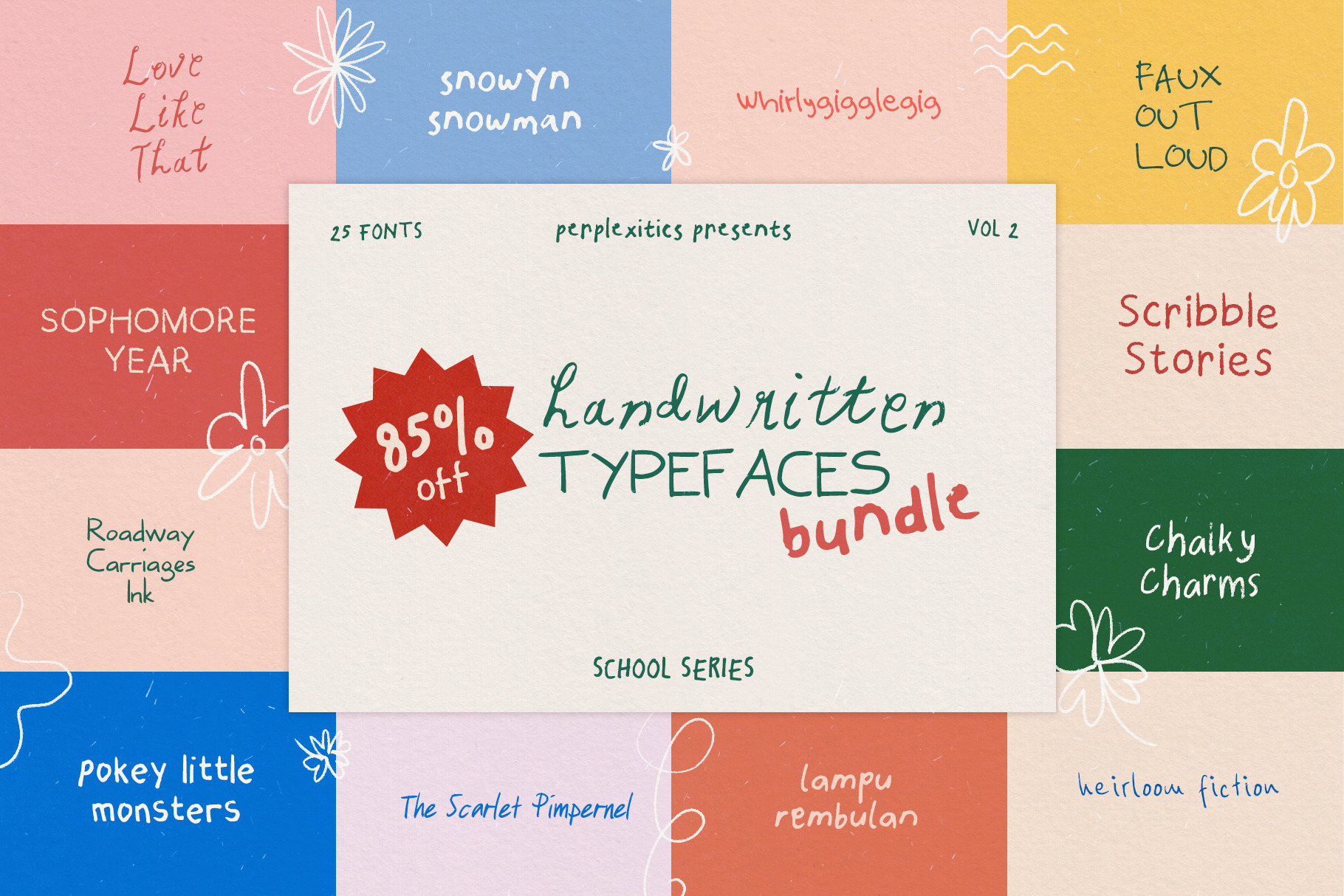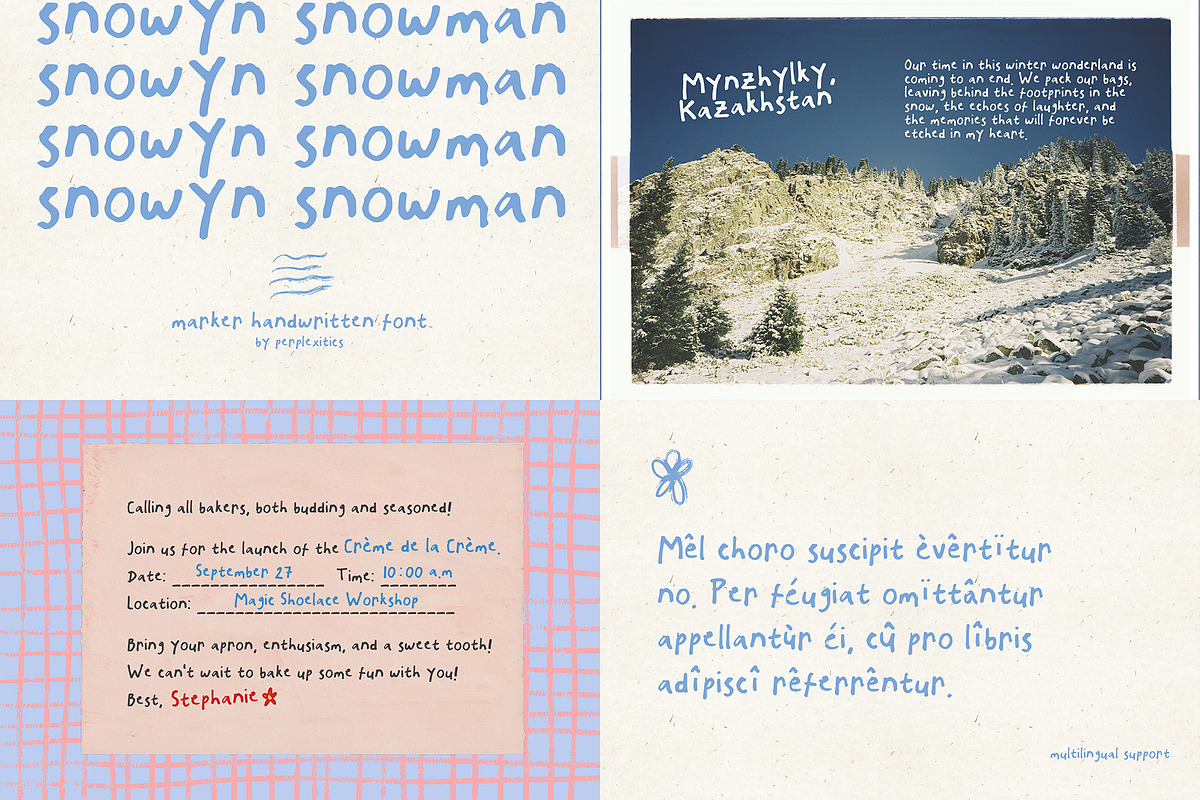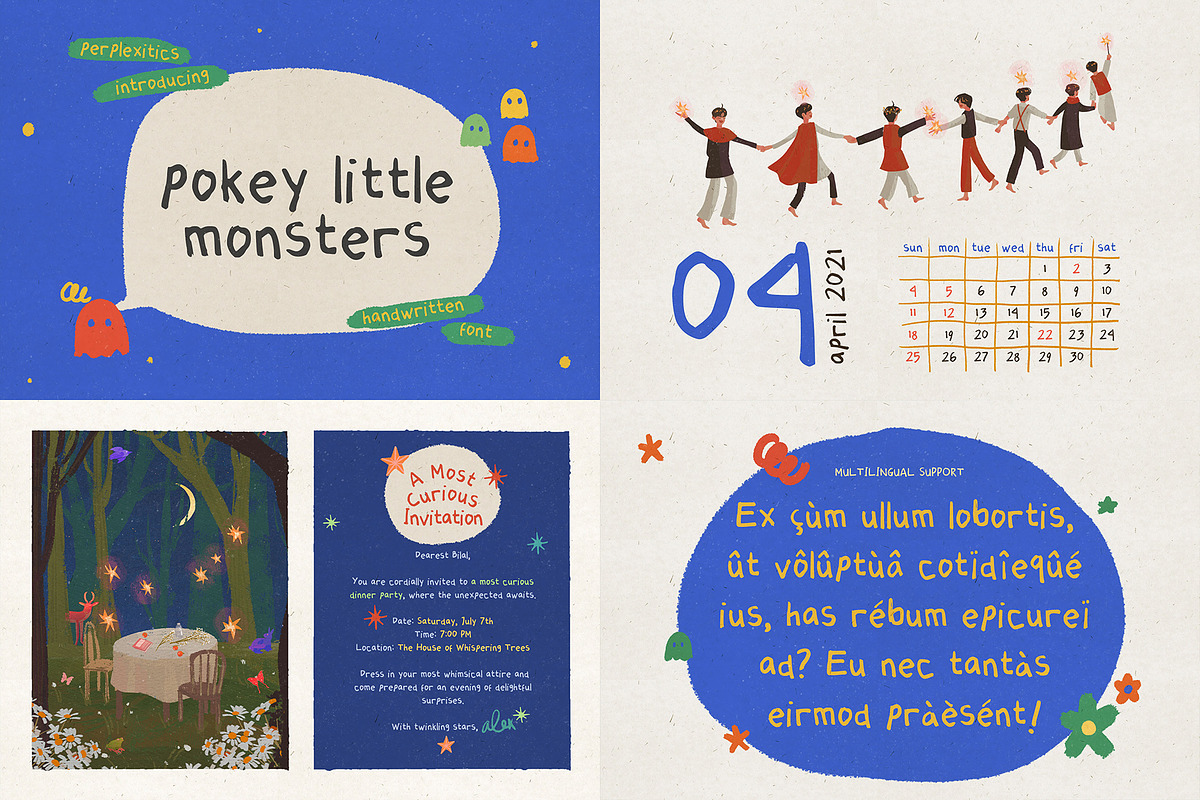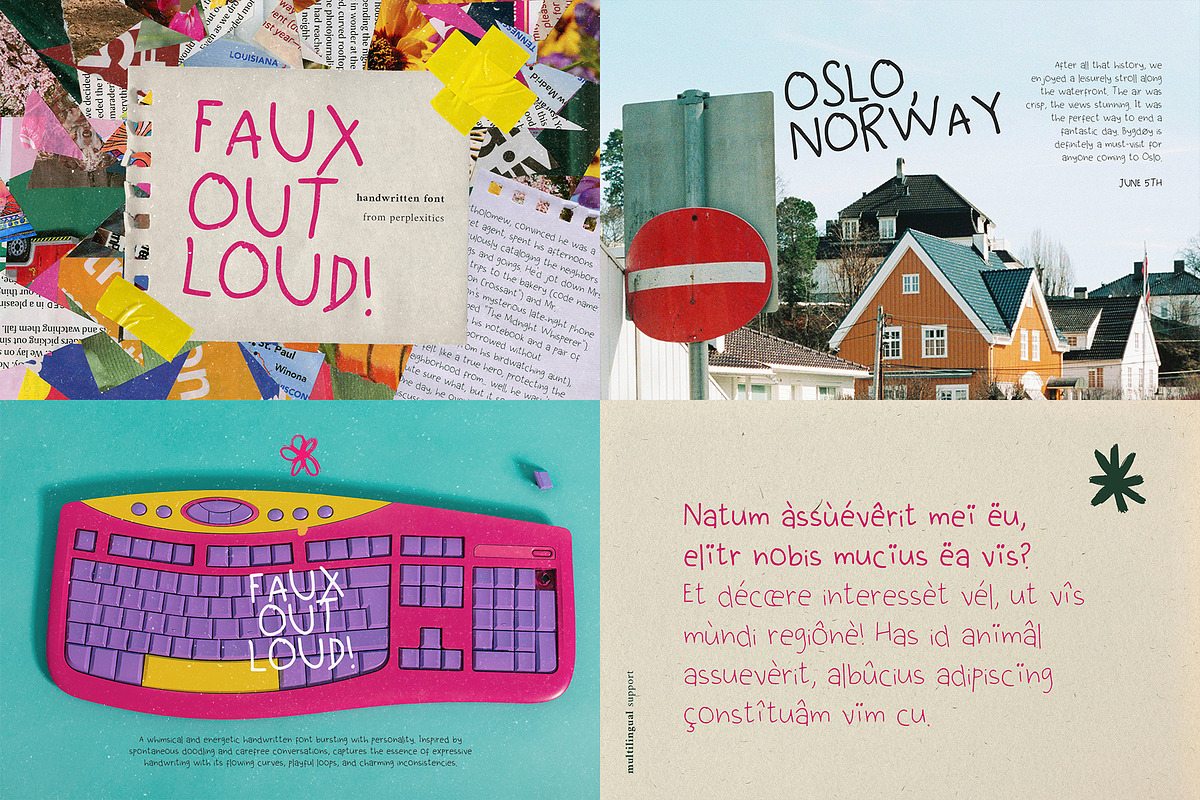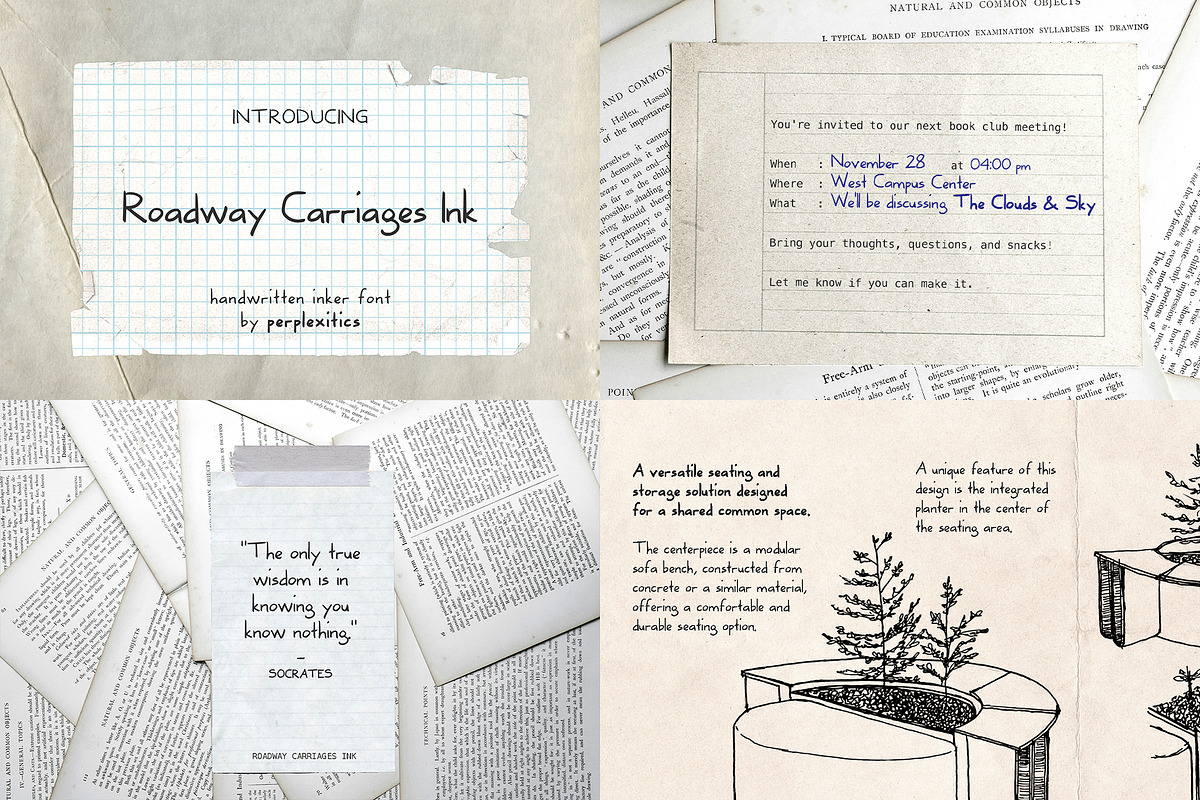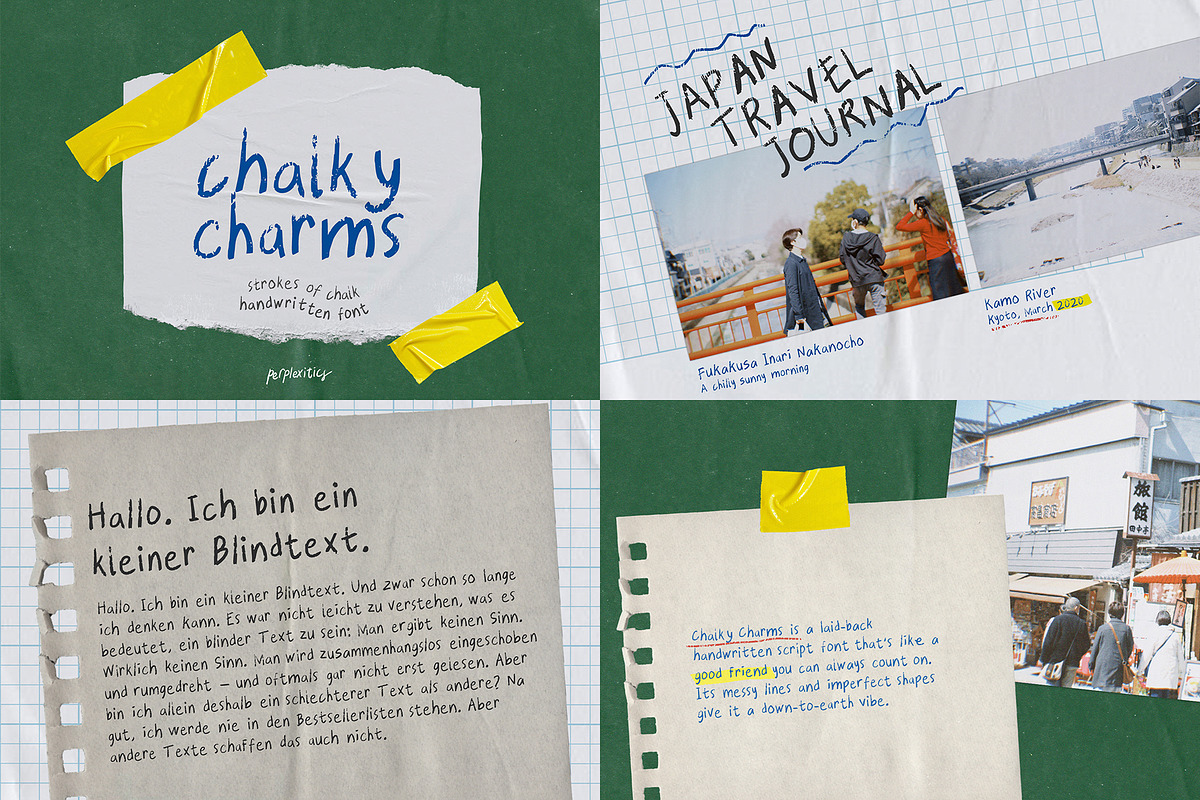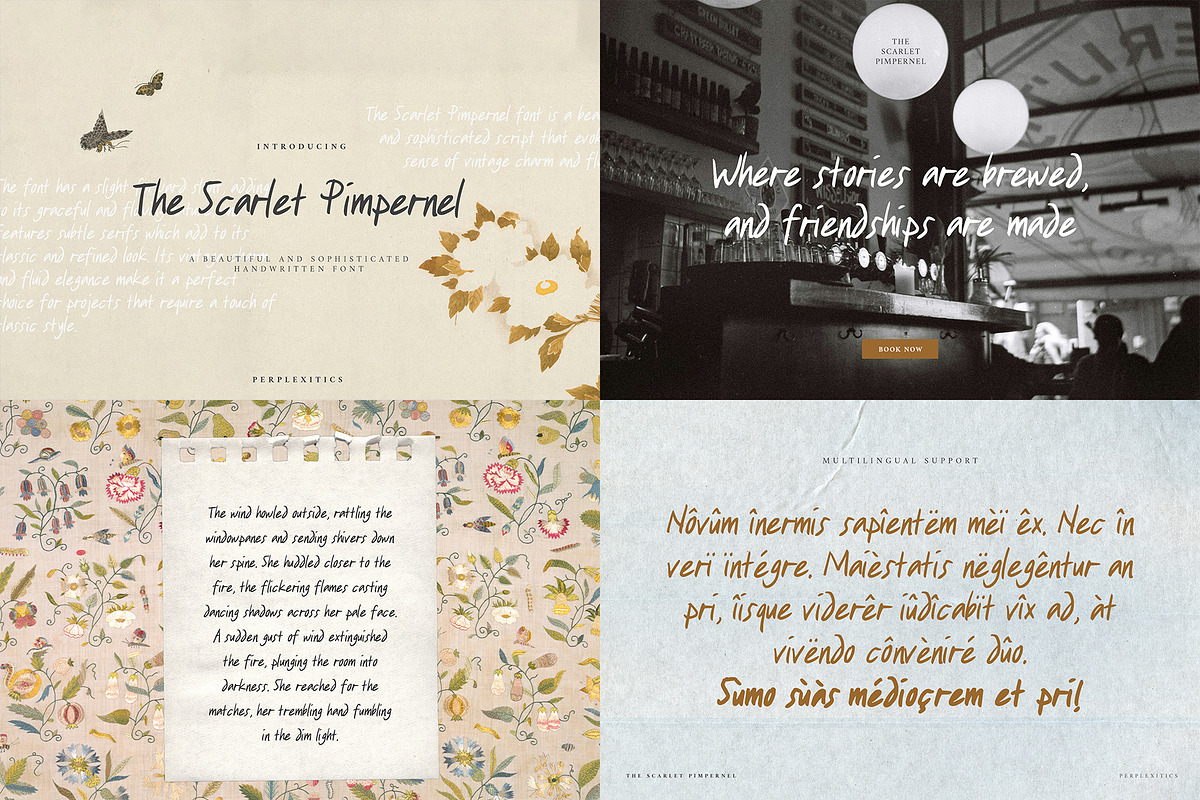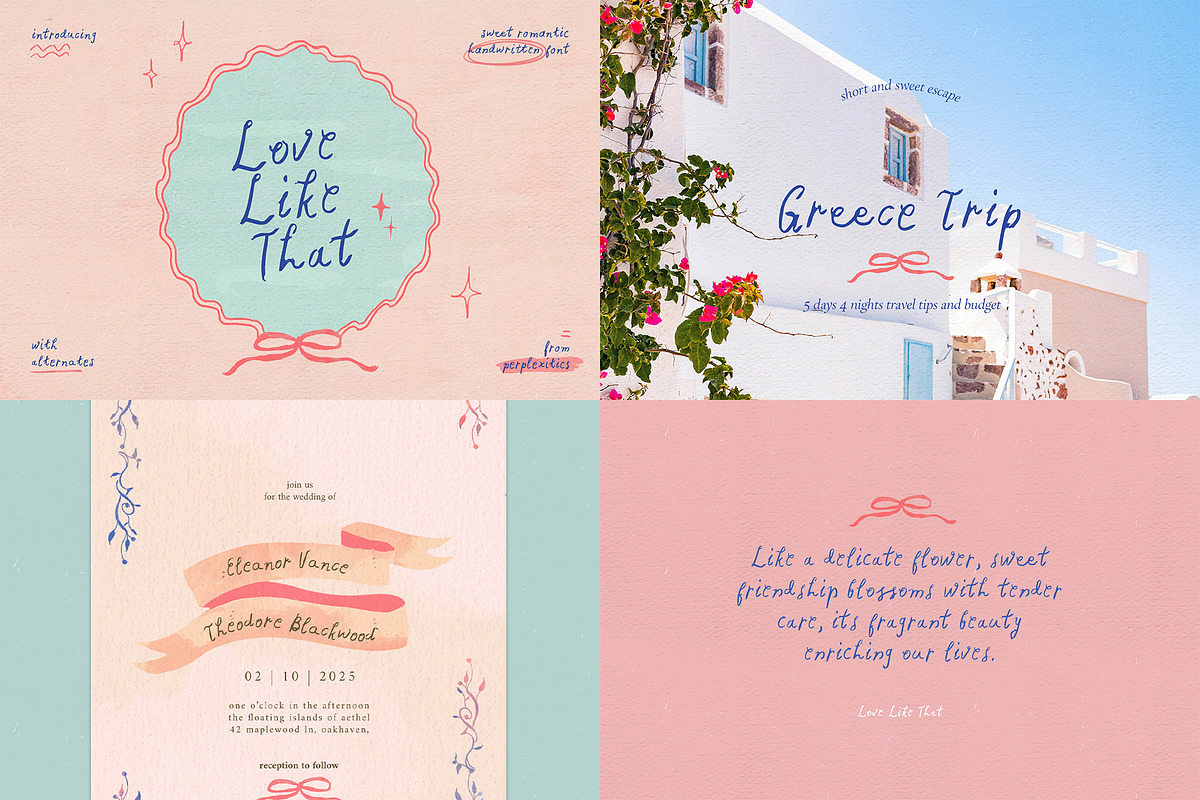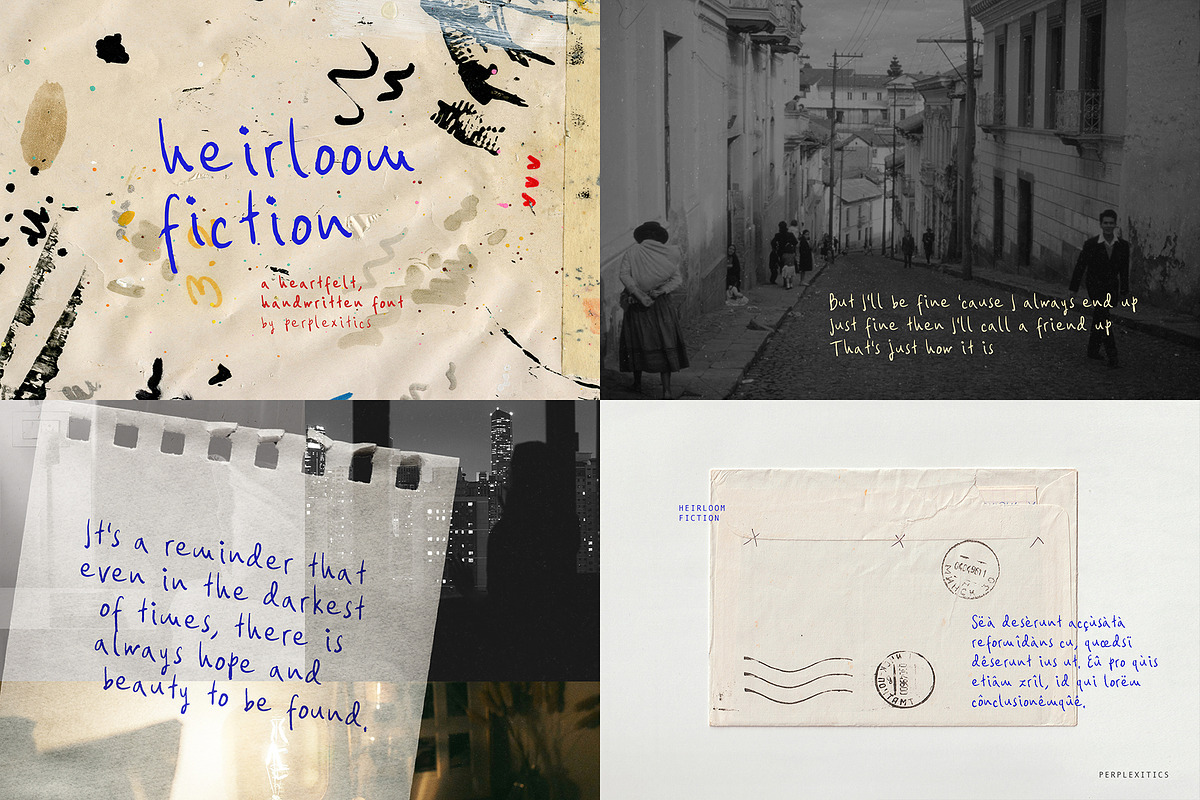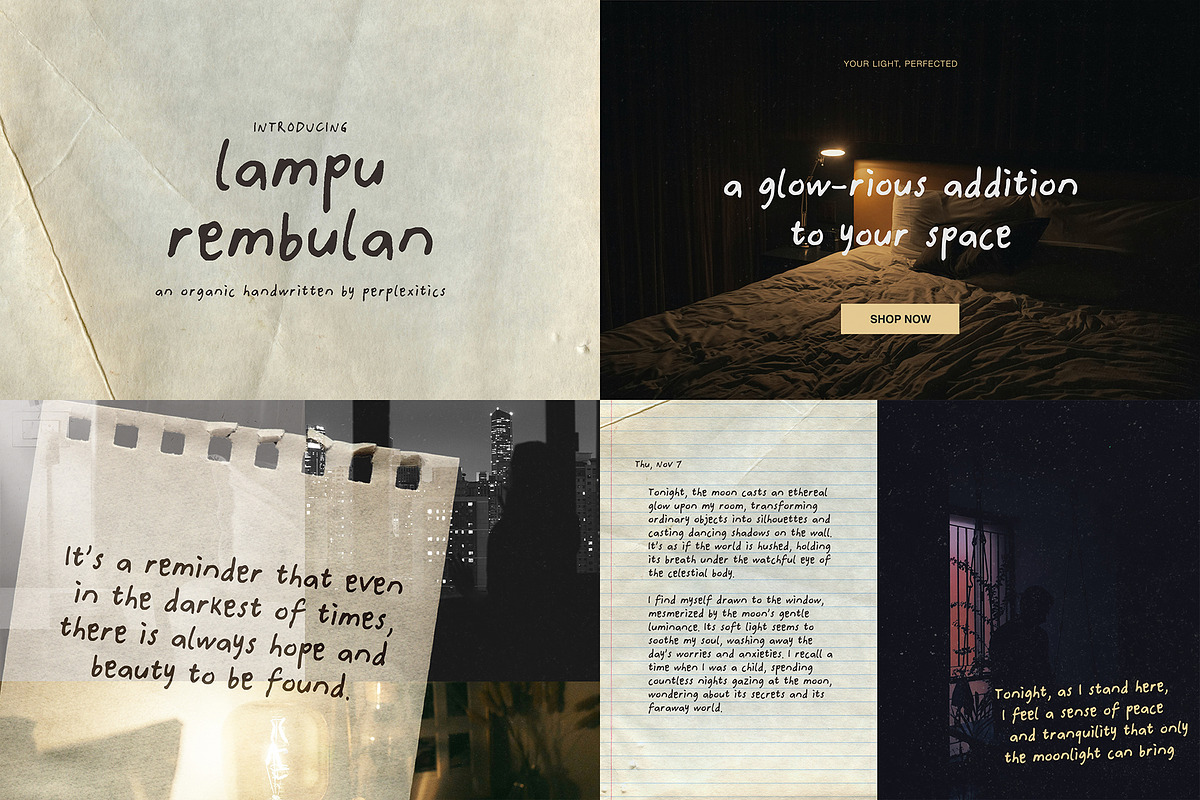
SchoolSeries Handwritten Font Bundle
School Series - Handwritten Font Bundle Vol.2 // Limited Time Only
Relive the nostalgic charm of classroom doodles and handwritten notes with the Back-to-Basics Handwriting Bundle. This collection brings you 25 unique fonts across 12 distinct typefaces, all designed with the endearing imperfections and authentic character of a school notebook. All multilingual support.